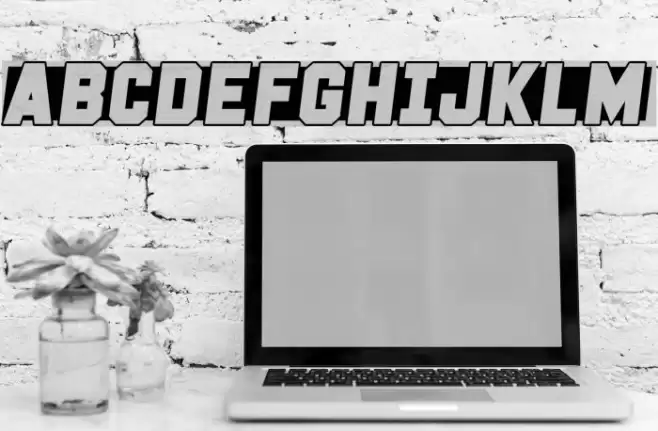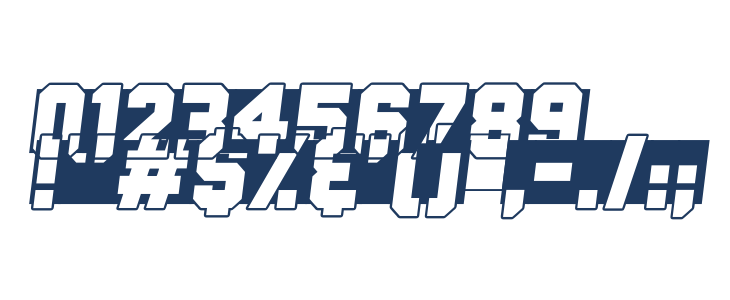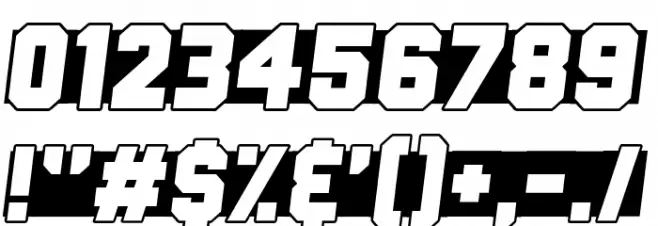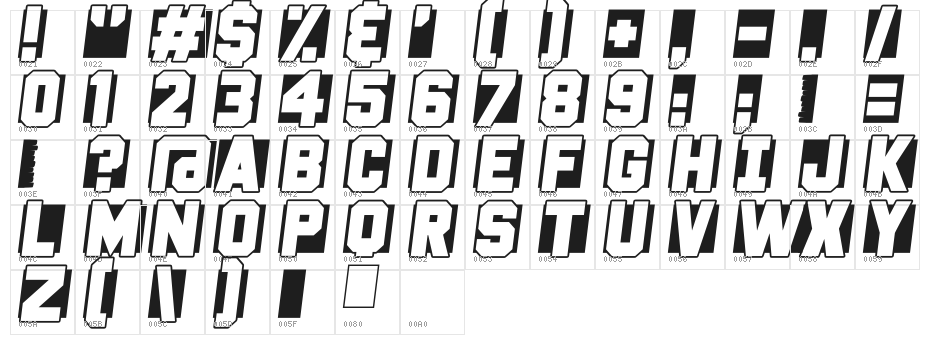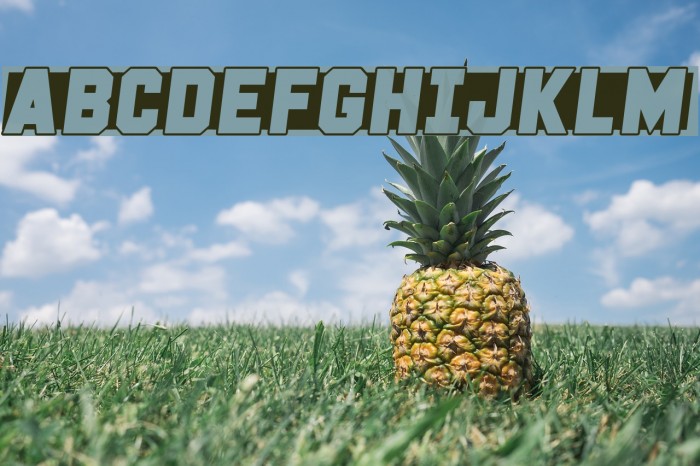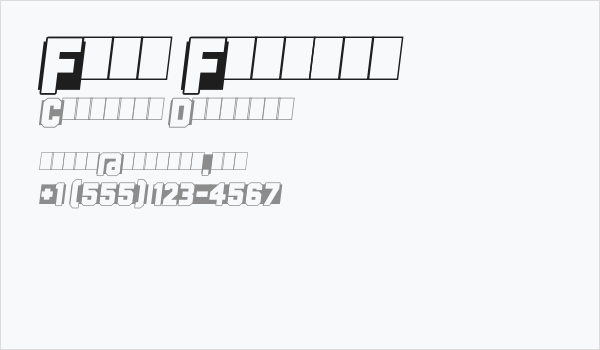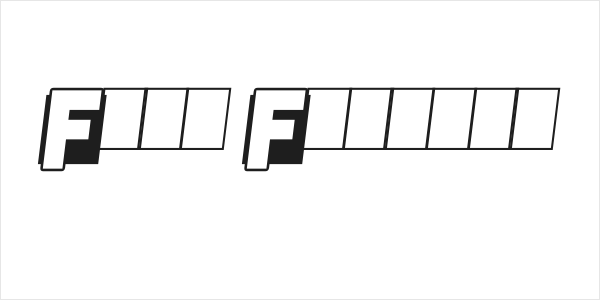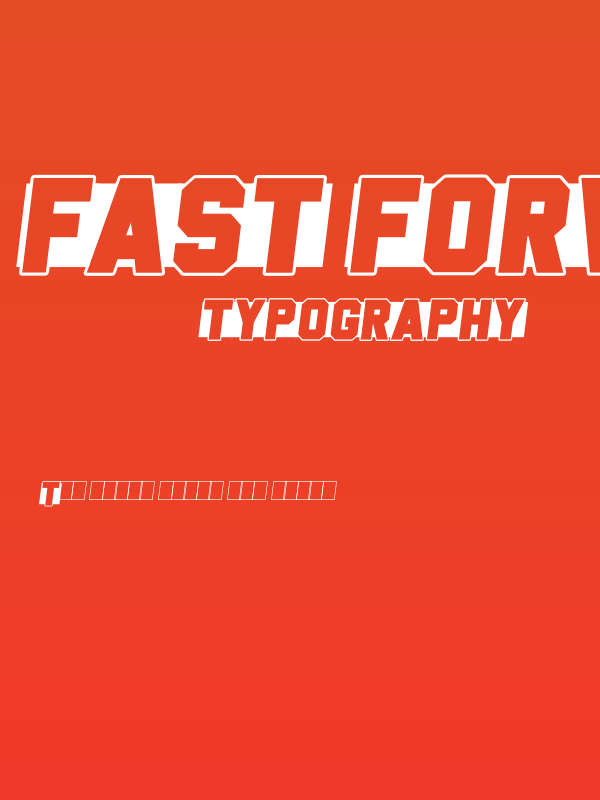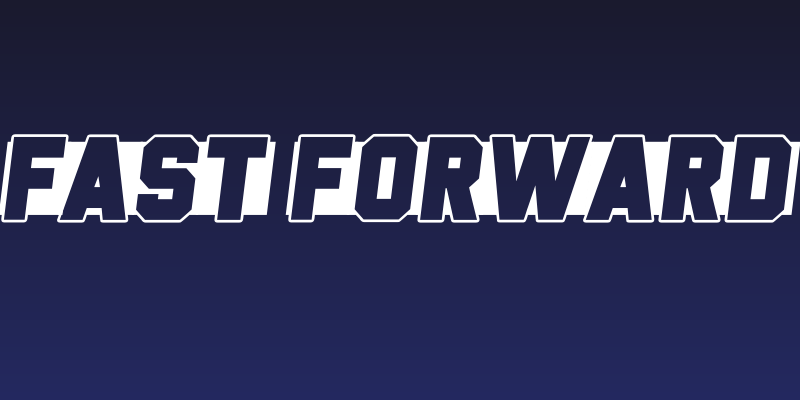
Fast Forward Font
Fast Forward Description
This font features a bold, dynamic style with a strong, forward-leaning slant that conveys a sense of speed and movement. The characters are blocky and robust, with a three-dimensional effect created by a shadow or outline that enhances their visual impact. The uppercase letters are particularly striking, with sharp angles and a solid presence that makes them stand out. The numerals and special characters maintain the same bold and energetic style, ensuring consistency across all elements. This font is ideal for projects that require a sense of urgency or action, such as sports branding, event posters, or dynamic advertising campaigns.
A bold, dynamic font with a forward-leaning slant and three-dimensional effect from Uncategorized fonts.
- Proposed Projects: Ideal for sports branding, event posters, dynamic advertising, and action-themed designs.